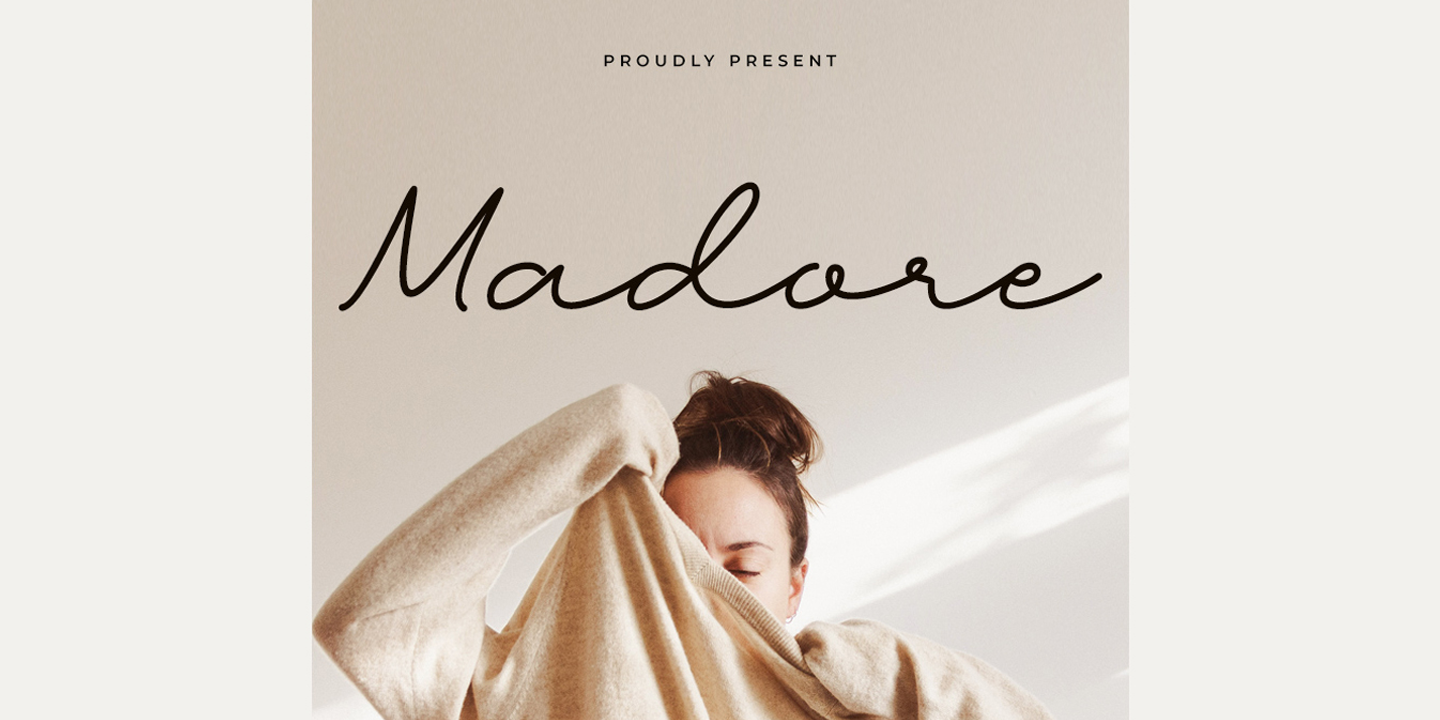
Madore Font is perfect for elegant design projects including luxury hotel branding, high-end restaurant menus, premium cosmetics packaging, sophisticated wedding stationery, upscale real estate marketing, exclusive fashion labels, fine jewelry catalogs, luxury travel brochures, elite spa materials, and prestigious corporate communications that demand refined typographic excellence and timeless sophistication.
What makes Madore Font so exciting is its exquisite combination of classical elegance with modern refinement that creates an aura of luxury and exclusivity while maintaining impeccable readability and versatility. This sophisticated typeface features graceful letterforms, balanced proportions, and subtle design details that convey prestige and quality, making it the ideal choice for brands targeting discerning audiences who appreciate fine craftsmanship and attention to detail.
This distinguished Madore Font Free Download represents the pinnacle of luxury typography, offering creative professionals an exceptional tool for projects requiring elegance, prestige, and sophisticated visual communication. Whether you're developing high-end branding, luxury marketing materials, or exclusive event designs, this font delivers unmatched refinement while ensuring excellent functionality. The elegant proportions and versatile styling options make it particularly valuable for luxury brands and premium services seeking to communicate exclusivity, quality, and sophisticated taste through typography that resonates with affluent audiences and creates lasting impressions.